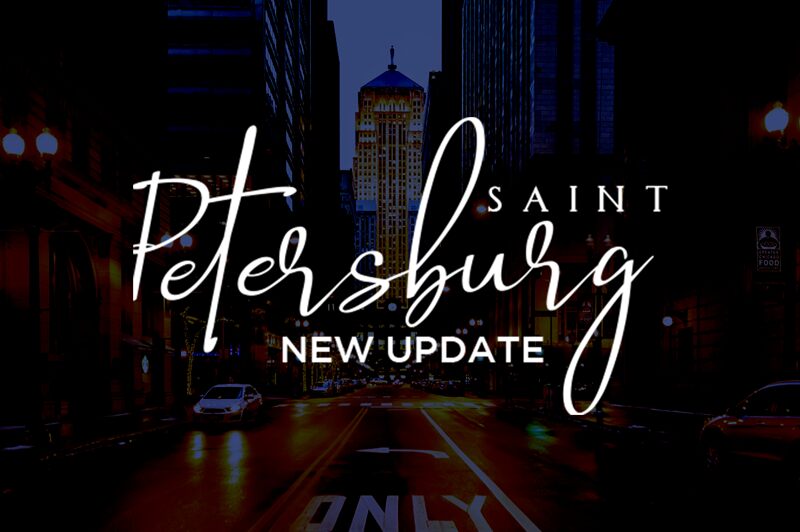
Saint Petersburg, a beautiful handwritten font designed by Haksen Studio, is perfect for bringing a touch of elegance and sophistication to your projects. Its light weight and semi-condensed width give it the versatility to be used in a variety of designs, from invitations to logos. This font's delicate curves and charmingly imperfect lines create an authentic handwritten feel that is both unique and eye-catching. Whether you're designing a wedding invitation or creating branding for a boutique, Saint Petersburg will add an air of refinement that will make your projects stand out.
Saint Petersburg